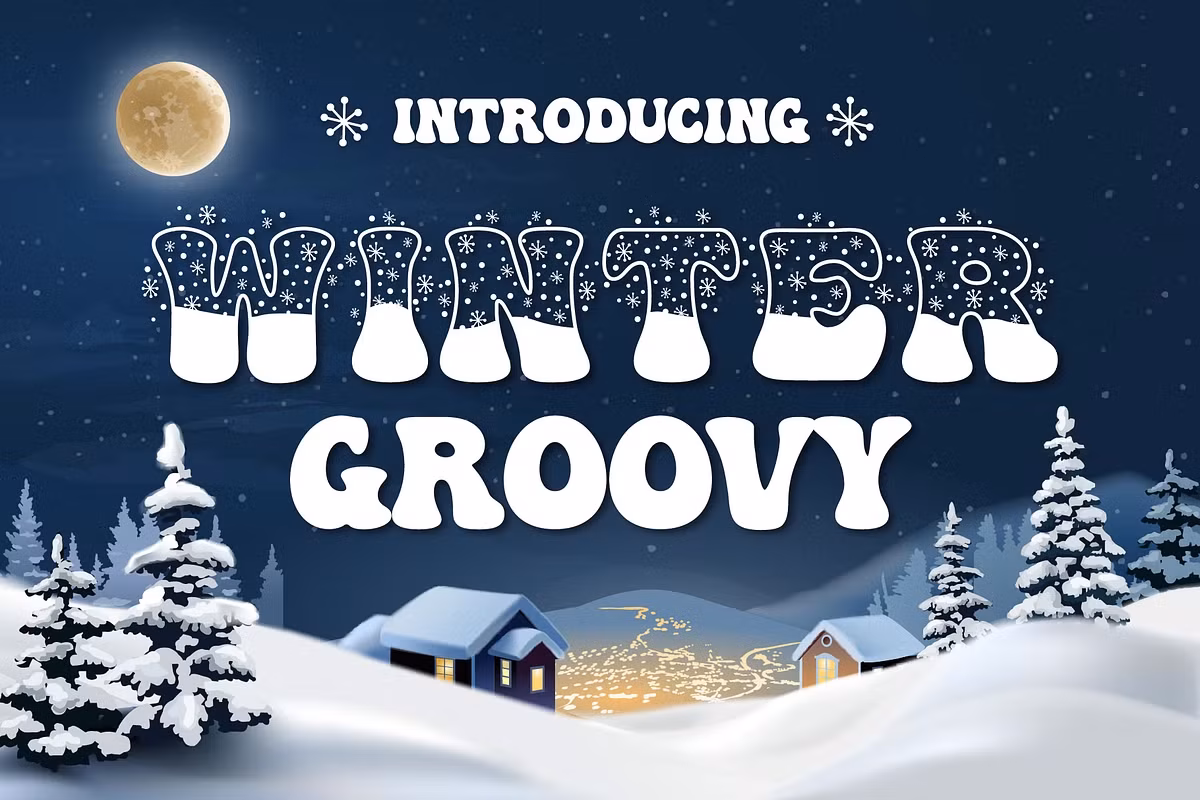
Winter Groovy Decorative Font Free Download is a fun and unique decorative typeface that combines wintery vibes with a groovy, retro style. Perfect for holiday-themed projects, event invitations, posters, social media graphics, and more, this font adds a touch of whimsy and warmth to your designs.
With its bold, funky letterforms and creative embellishments, Winter Groovy captures the essence of both the winter season and playful design, making it ideal for any project that needs a festive, energetic flair. Whether you’re creating seasonal branding or promoting a cozy winter event, this font is sure to make your designs stand out.